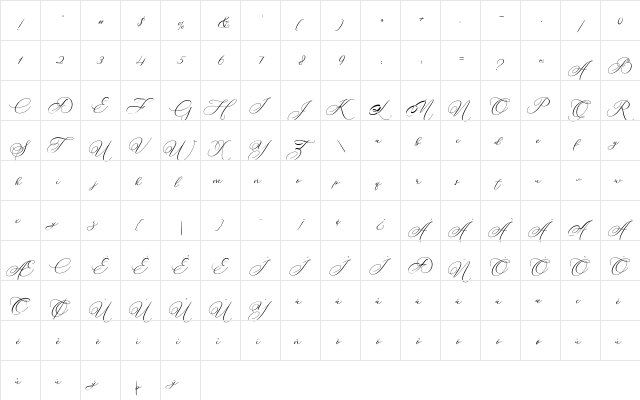
Betty Laudia Script Regular
| Foundry | Khalidin.Ink |
| Designer | Nurkhalidin |
Design Context for Betty Laudia Script Typeface
Betty Laudia Script brings a calligraphic fluidity to the page — its connecting strokes and expressive curves give it an unmistakably human quality.
Font Pairing: Combine Betty Laudia Script with a simple geometric sans for maximum contrast — the tension between flowing curves and clean structure is a classic typographic pairing.
Pro Tip: Use Betty Laudia Script for short runs of text — names, titles, or taglines. Extended body copy in script faces tires the eye quickly.